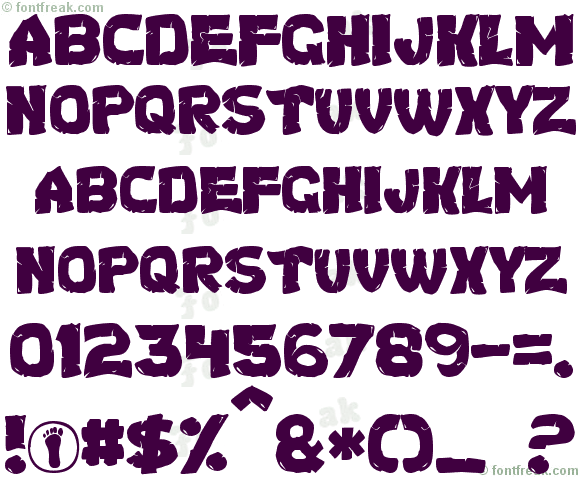
Turtles
About Turtles
The Turtles font by Neale Davidson is a unique display typeface characterized by its playful, hand-drawn aesthetic. This decorative font features irregular strokes and an organic feel that evokes a sense of whimsy and creativity. The stroke weight varies throughout the characters, giving it a dynamic appearance, while the uneven edges add to its handcrafted charm. Turtles font is available for free download, making it an accessible choice for various creative projects.
Its visual characteristics make it ideal for use in settings where a fun and casual vibe is desired. The font's bold, chunky letters are perfect for children's book covers, where it can capture the attention of young readers. Additionally, it works wonderfully for party invitations, especially for themes related to nature or marine life, adding a playful touch that enhances the overall design. Restaurant menus featuring seafood or family-friendly eateries can also benefit from the font's approachable look, making the text inviting and easy to read. Graphic designers and content creators looking to infuse their projects with a light-hearted tone will find Turtles font to be a valuable asset.
Targeted at graphic designers, small business owners, and anyone involved in creative endeavors, Turtles font stands out due to its unique blend of fun and functionality. Its irregularities and bold presence make it a memorable choice that can elevate design projects across various mediums. Whether you’re crafting promotional materials or whimsical artwork, this font adds a distinctive flair that resonates with audiences. Embrace the charm of Turtles font in your next design project to create something truly special.